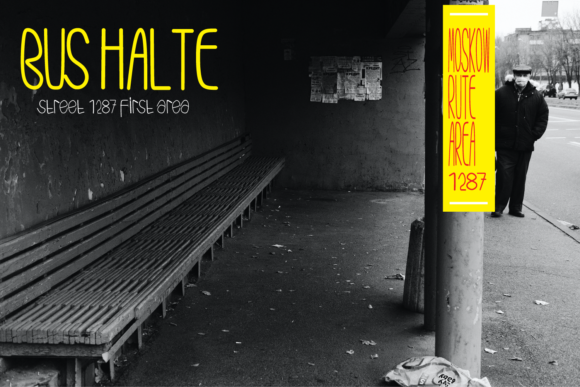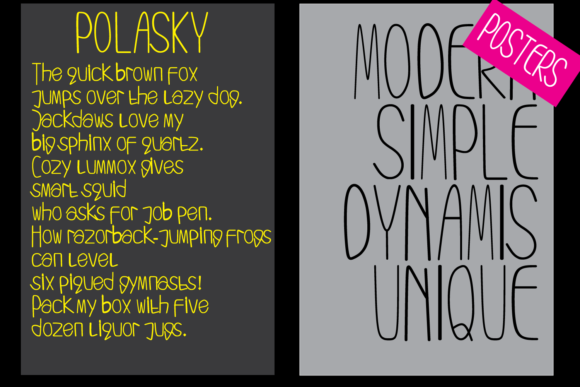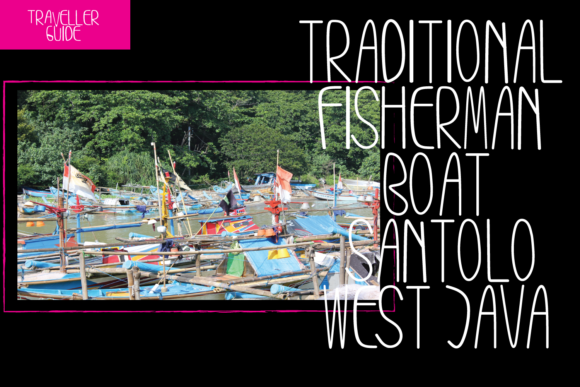
Introduction to Polasky Font
Have you ever found yourself stuck in a creative rut, struggling to find the perfect font to elevate your design? I know I have. The blank page stares back at me, taunting me with its emptiness. But then, it happens – a spark of inspiration, a glimpse of a beautiful font that sets my imagination ablaze. This is exactly what the Polasky Font is designed to do – ignite your creativity and take your designs to the next level.
As a valuable resource for designers, the Polasky Font offers a unique blend of modern and handwritten curves that exude high-quality style and sophistication. Whether you’re working on a free download project or a high-end design, this font is sure to make a lasting impression with its transparent background and chic, modern aesthetic.
Key Features of Polasky Font
- High-quality font designed for creative projects and professional use
- Features a unique and modern design, ideal for various creative applications
- Supports a wide range of languages and characters, making it a versatile design resource
Honest Review: Polasky Font
I recently came across the Polasky Font, and I was excited to give it a try in my latest design project. As a designer, I’m always on the lookout for high-quality fonts that can elevate my work.
- ✨ One of the things I liked about the Polasky Font is its clean and modern design. It’s perfect for creative projects that require a touch of sophistication.
- ✨ Another great feature is the transparent background, making it easy to use in a variety of design contexts.
- ⚠️ The font is a bit limited in its character set, which may not be ideal for projects that require a wide range of characters.
- ⚠️ Additionally, the font may not be as versatile as some other popular fonts on the market.
Overall, I think the Polasky Font is a solid addition to any design resource library. While it may have some limitations, its high-quality design and free download make it a great option for designers looking to elevate their creative projects.
Tips for Getting the Most Out of Polasky Font
To get the most out of the Polasky Font, consider the following tips:
- Use the font with a transparent background to create a seamless design.
- Experiment with different font sizes and styles to find the perfect look for your project.
- Combine the Polasky Font with other high-quality design resources to create a unique and eye-catching design.
The Polasky Font is perfect for a variety of design projects, including:
- Branding materials
- Infographics
- Brochures and flyers